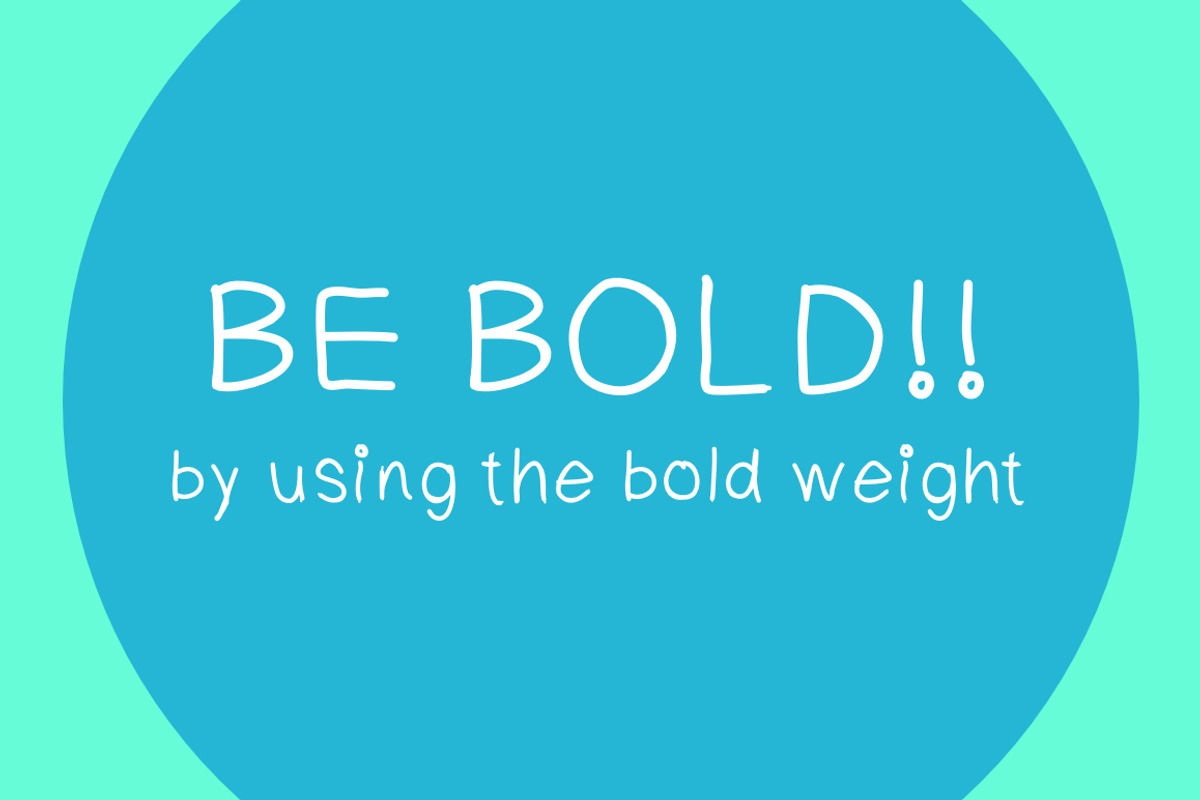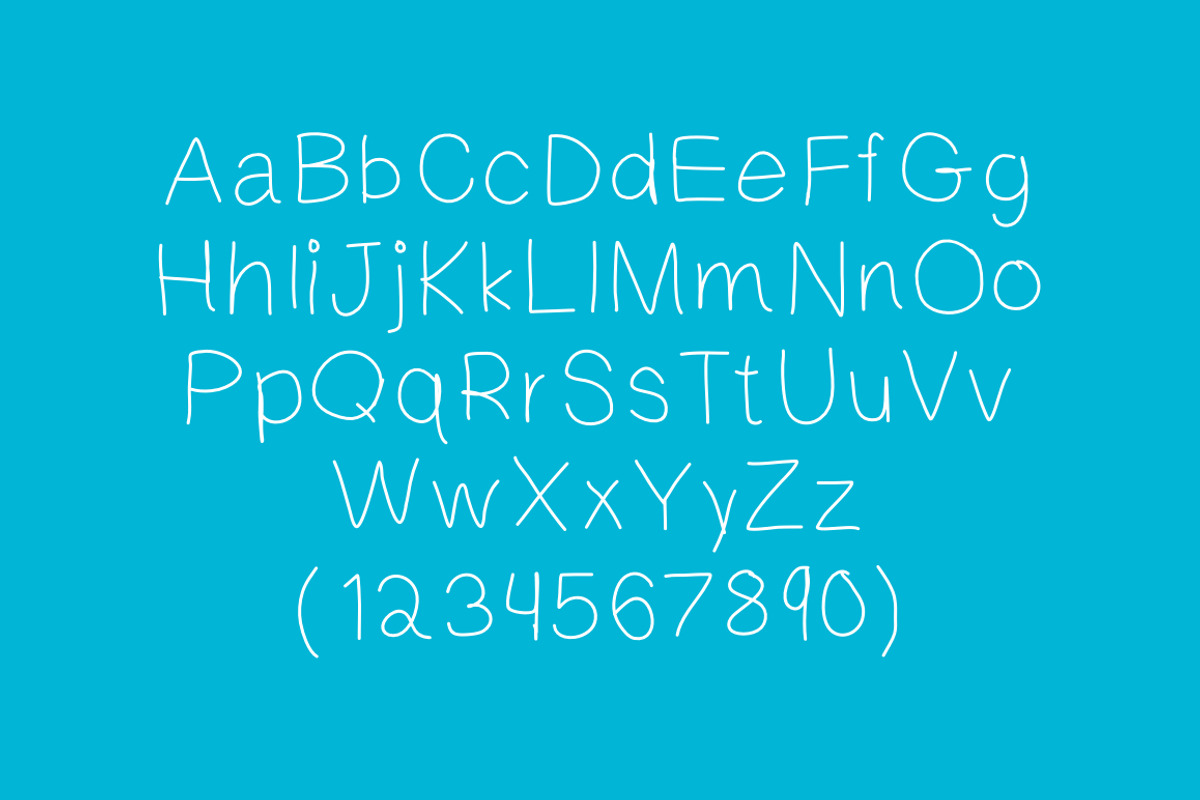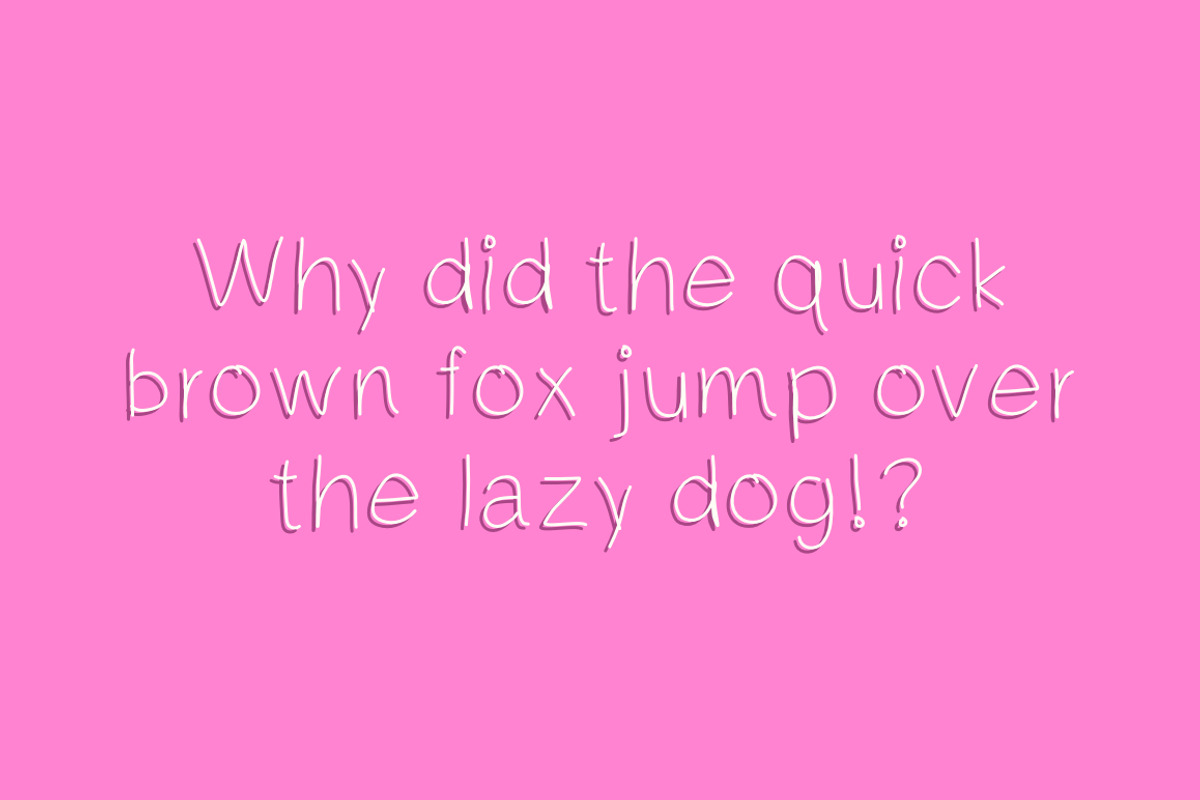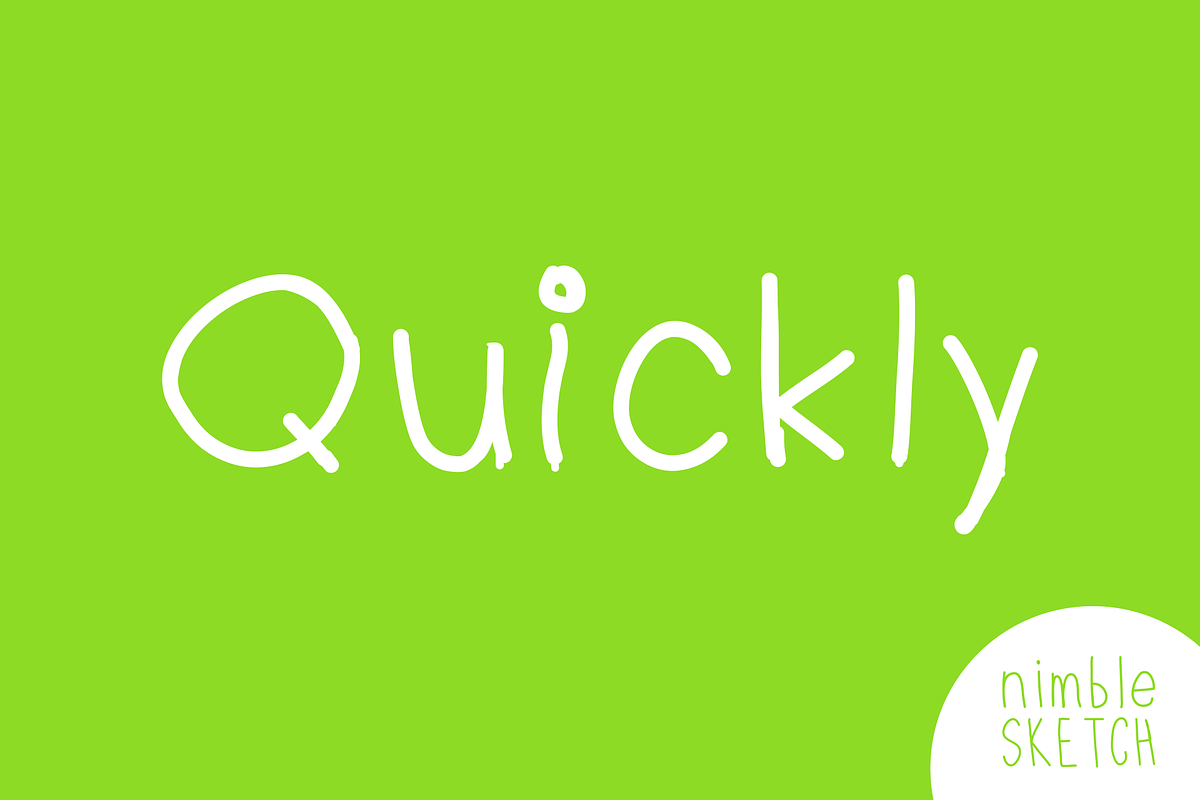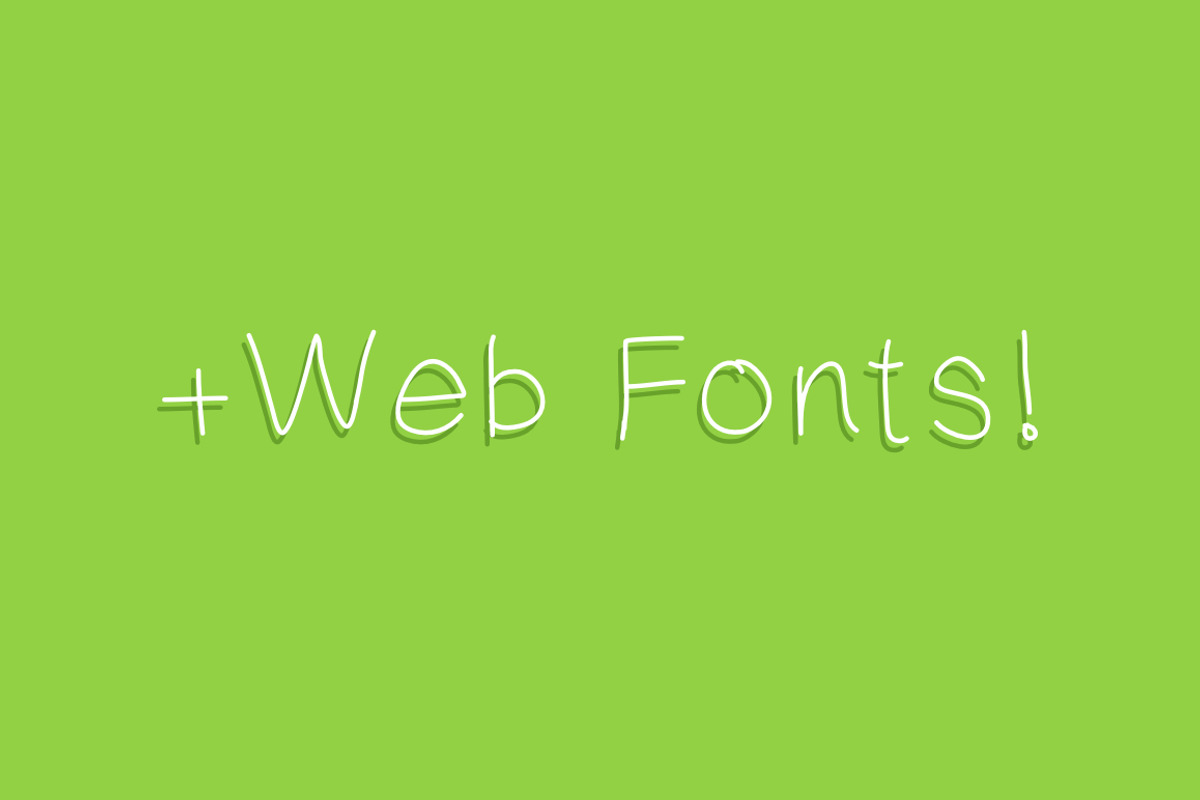
Quickly Handwritten Font
Quickly Handwritten Font by Jacob deCastro is a font selected for branding, posters, packaging, typography.
Why Quickly Handwritten Font is worth a look
Quickly Handwritten Font by Jacob deCastro fits naturally into Branding, posters, packaging, typography.